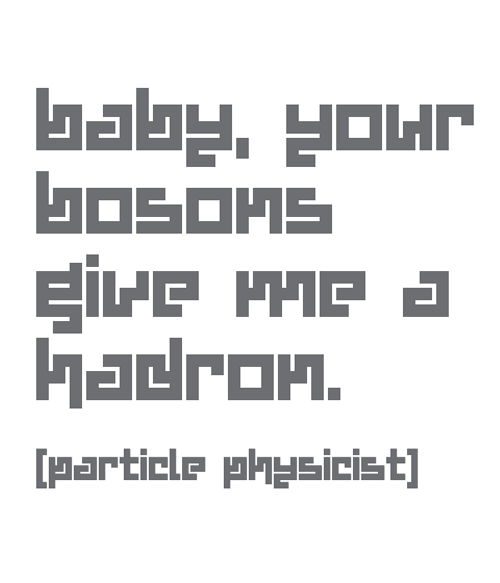
I'm not a big fan of minimalist designs, but this has character and interest to its credit.
I like it!
I was a bit tinkering with Magor, my earlier minimal design font. As I generated more alternate characters, I found this particular set (above) so attractive as to merit a separate font.
Hunor, and its sibling font, Magor, are named after the two princes from the ancient Hungarian legend of the miraculous white stag. According to the old myth the two brothers were the ancestors of the Huns and the Magyars, respectively. (for more details see no further than http://en.wikipedia.org/wiki/Hunor_and_Magor)
i'm an immense fun of minimalist design - and this one is great!